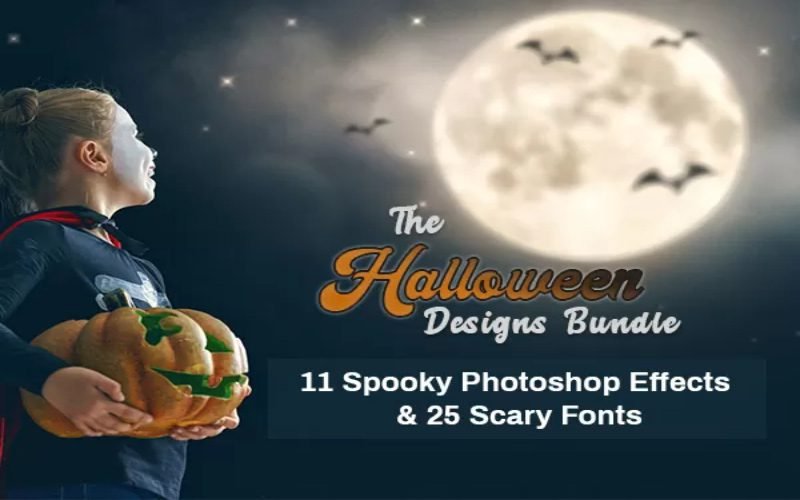
The Halloween Designs Bundle – 11 Spooky Photoshop Effects & 25 Scary Fonts
This Halloween – embrace your Dark side and create chilling, mystical effects with quirky multi-lingual fonts and spooky Halloween Photoshop effects with –
The Halloween Design Elements Bundle
Making a Halloween effect is simple – Pick a photo, mark it on the smart layer of the template ‘Halloween Photoshop Effect’, select the appropriate texture and you’re done!
Each template contains dozens of overlays and settings for easy customization.
You can use the fonts for Halloween-themed print projects, invitations, greeting cards, posters, quotes, T-shirt designs, and more.
Map your creative range with this bundle set of 25 unique Halloween fonts and effects with over 100+ overlays.
25 Halloween Font Pack included in Halloween Designs bundle –
Banshee Halloween Font
Cloomy Halloween Font
Corsair Halloween Font
Cursed Halloween Font
Ghostly Halloween Font
Goshawk Halloween Font
Harrier Halloween Font
Haunted Halloween Font
Heiifire Halloween Font
Helldiver Halloween Font
Hornef Halloween Font
Magical Halloween Font
Masked Halloween Font
Menancing Halloween Font
Orion Halloween Font
Osprey Halloween Font
Phantom Halloween Font
Seahawk Halloween Font
Sinister Halloween Font
Spooky Halloween Font
Tomahawk Halloween Font
Tomcart Halloween Font
Trion Halloween Font
Viking Halloween Font
Wicked Halloween Font
Preview of 25 Halloween Fonts
Cloomy Halloween Font
Cursed Halloween Font
Ghostly Halloween Font
Goshawk Halloween Font
Harrier Halloween Font
Haunted Halloween Font
Heiifire Halloween Font
Helldiver Halloween Font
Banshee Halloween Font
Corsair Halloween Font
Best Halloween Fonts
Hornet Halloween Font
Magical Halloween Font
Masked Halloween Font
Orion Halloween Font
Osprey Halloween Font
Phantom Halloween Font
Seahawk Halloween Font
Sinister Halloween Font
Spooky Halloween Font
Menacing Halloween Font
Halloween Themed Fonts
Tomcat Halloween Font
Triton Halloween Font
Viking Halloween Font
Wicked Halloween Font
Tomahawk Halloween Font